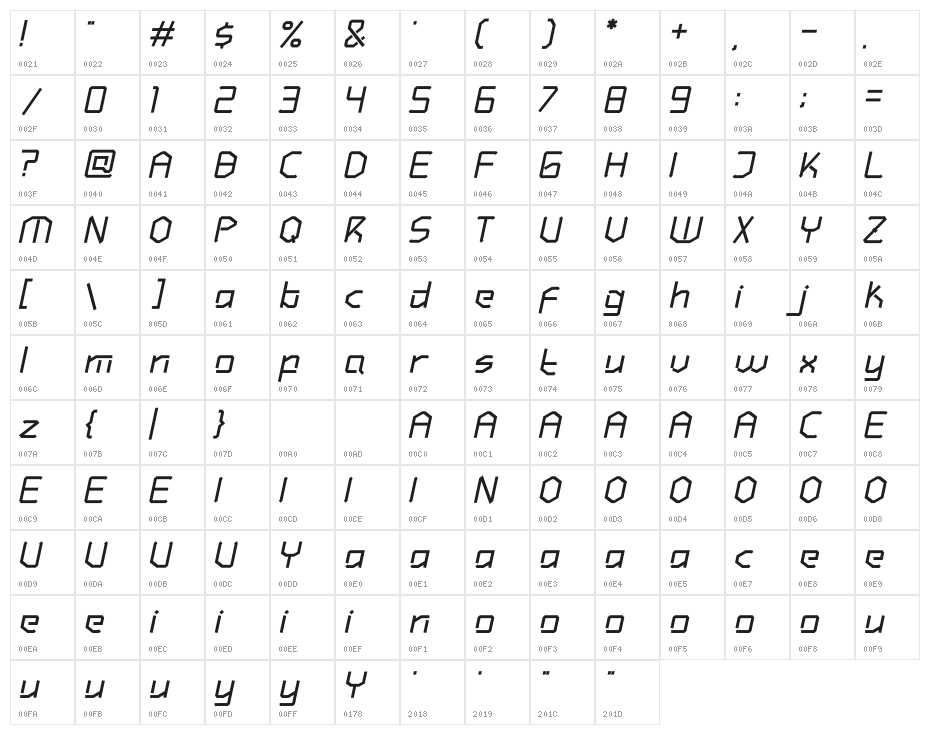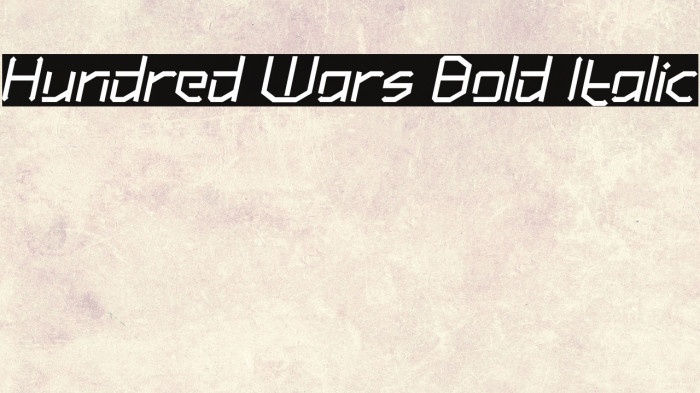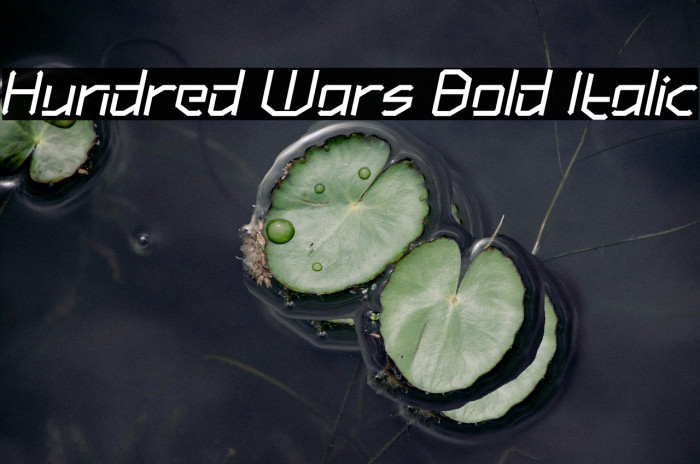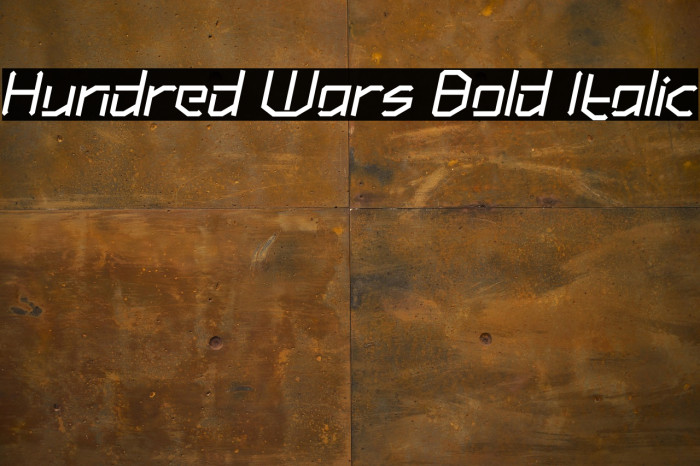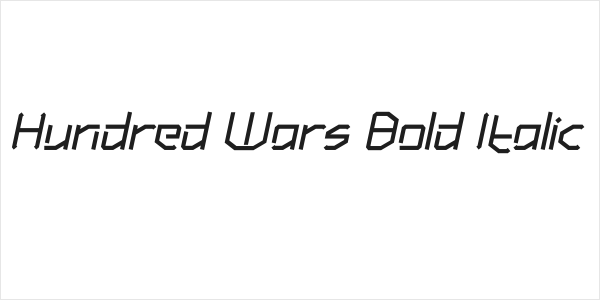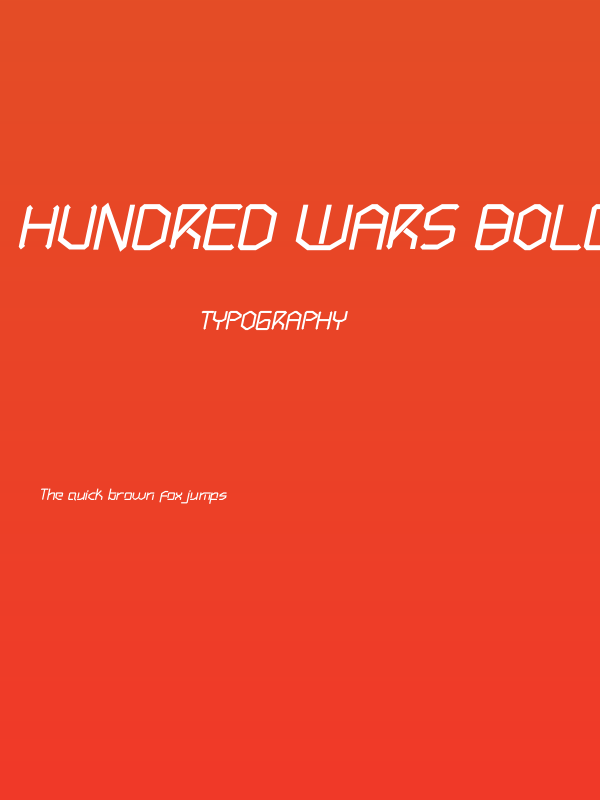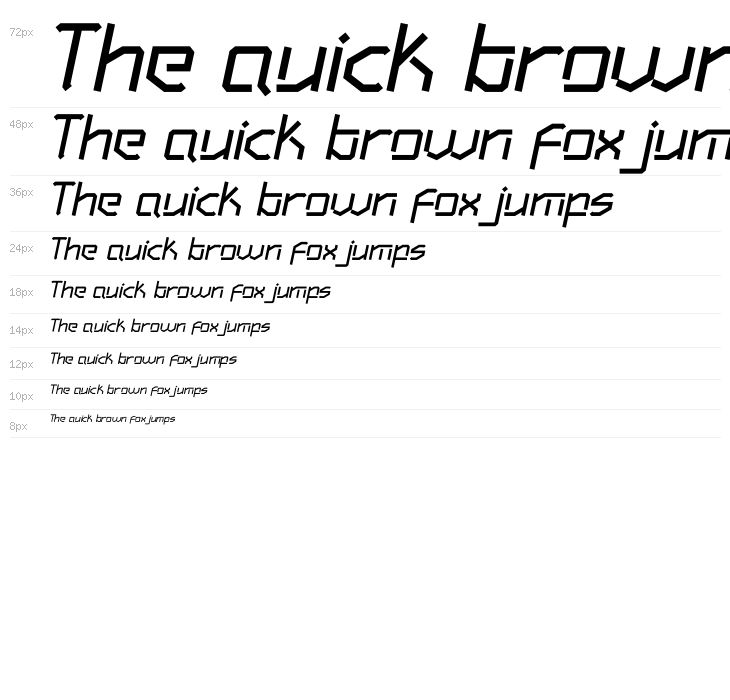
Hundred Wars Bold Italic Font
Hundred Wars Bold Italic Description
This font features a bold and italicized style with a futuristic and angular design. The characters are constructed with sharp, geometric lines that give a sense of movement and dynamism. The uppercase and lowercase letters maintain a consistent angular theme, while the numbers and special characters complement the overall aesthetic. The font's unique structure makes it stand out, suitable for projects that require a modern and edgy look. Its boldness ensures visibility and impact, making it ideal for attention-grabbing designs.
| Proposed Projects | Ideal for sci-fi themed designs, video game graphics, tech branding, and modern posters. |